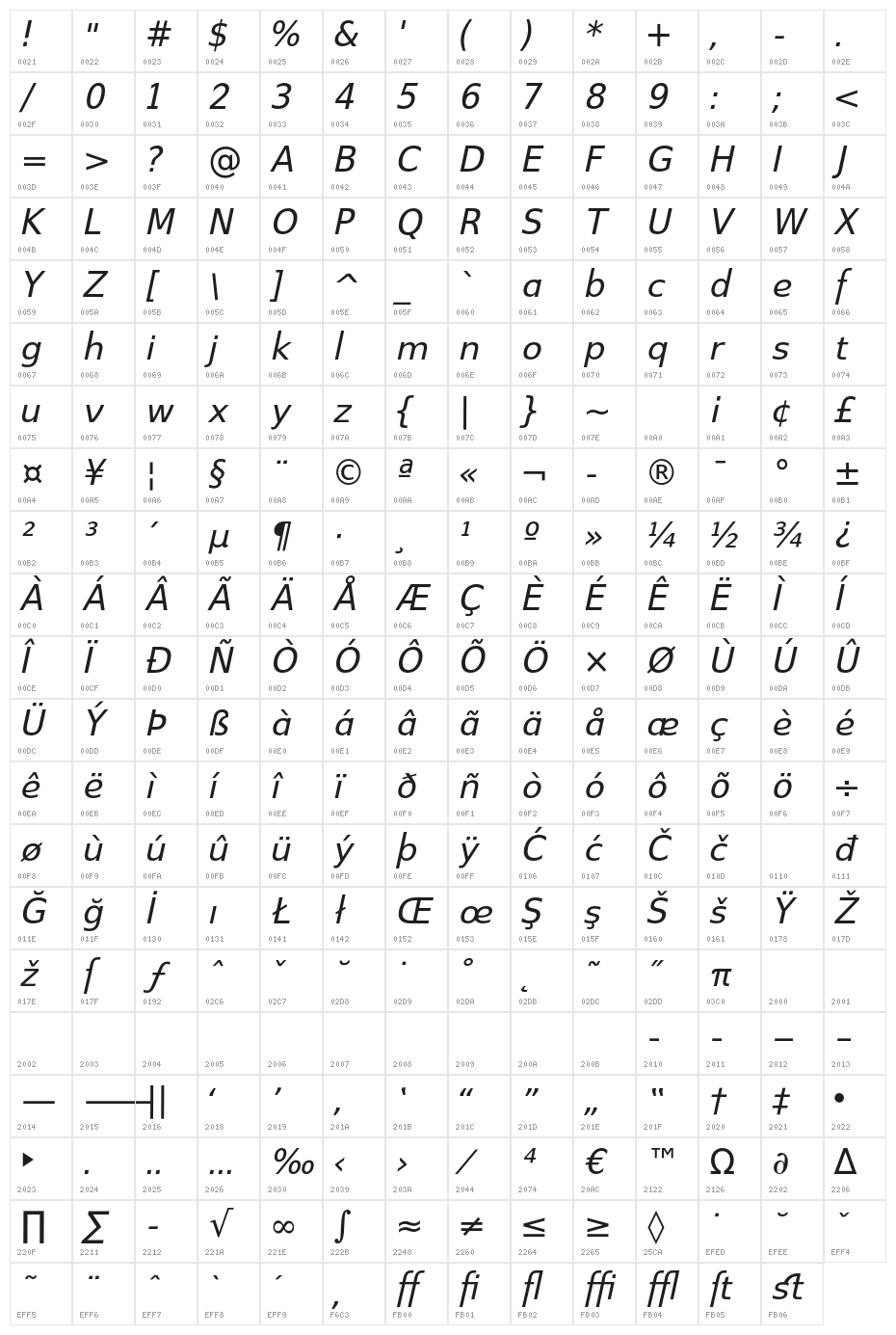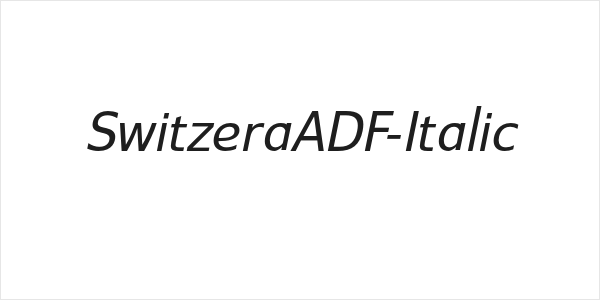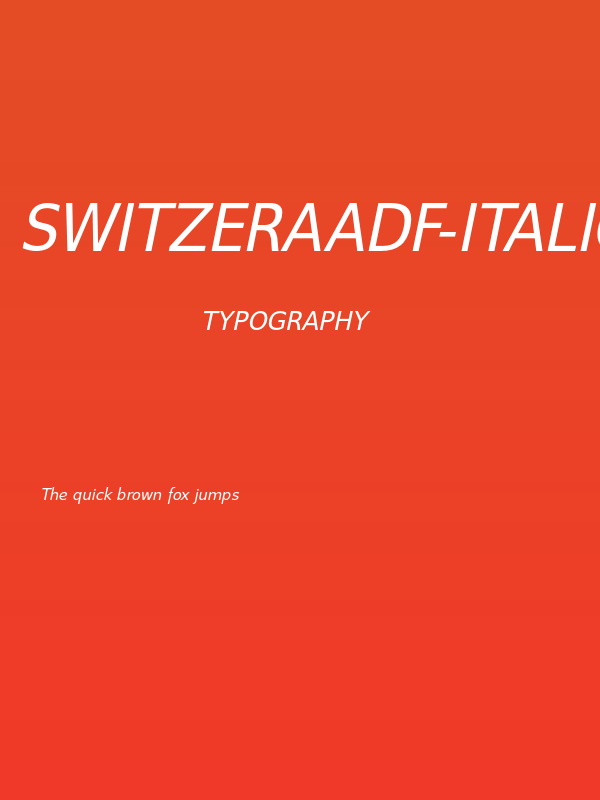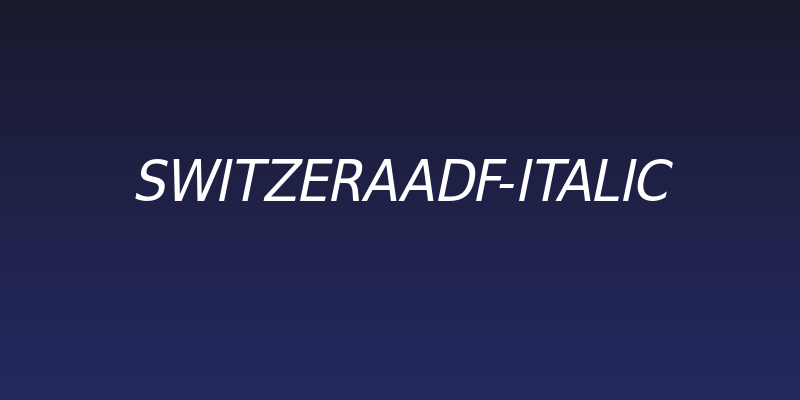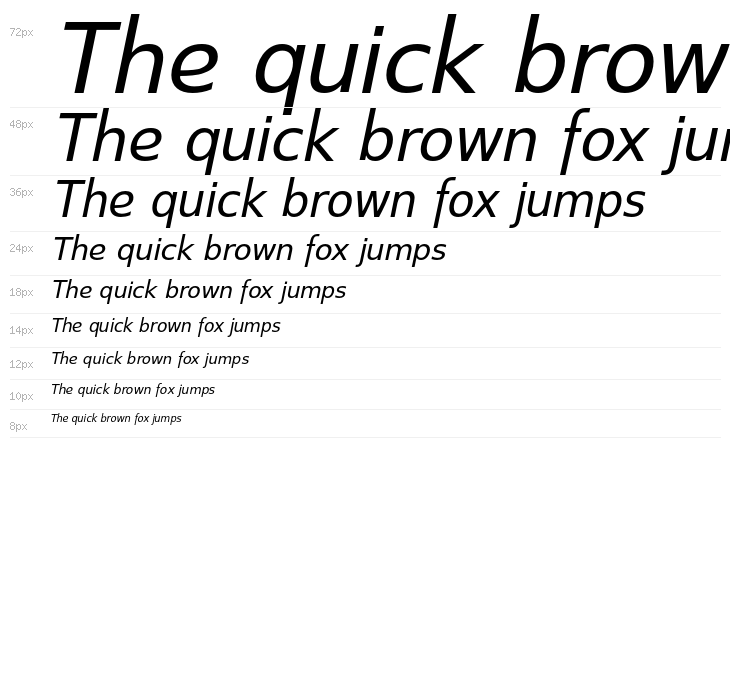
SwitzeraADF-Italic Font
SwitzeraADF-Italic Description
This font features a sleek, modern design with a slight italic slant, giving it a dynamic and elegant appearance. The characters are well-proportioned with a consistent stroke width, contributing to a clean and professional look. The uppercase letters are bold and assertive, while the lowercase letters maintain a smooth flow, enhancing readability. The numerals are clear and distinct, making them suitable for various applications. Special characters are designed with precision, ensuring they blend seamlessly with the rest of the font. Overall, this font exudes a contemporary style that is both versatile and appealing.
| Proposed Projects | Ideal for branding, advertising, editorial design, and digital interfaces. |